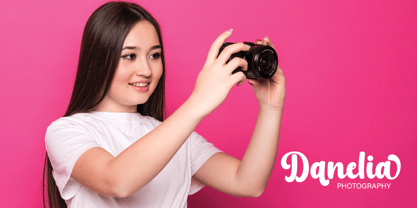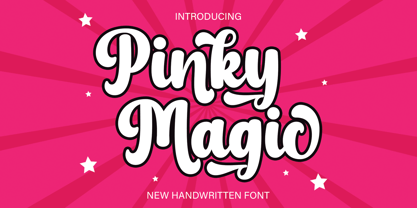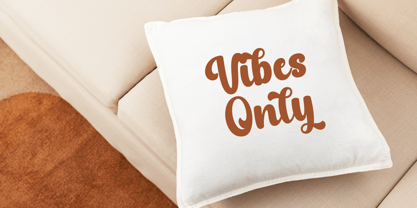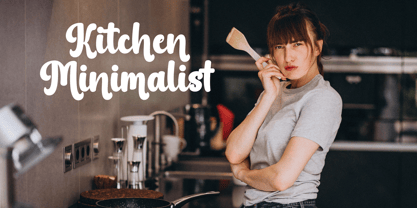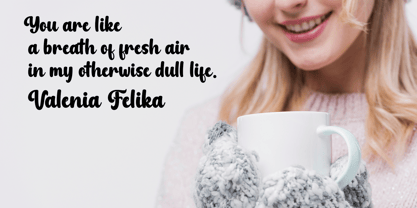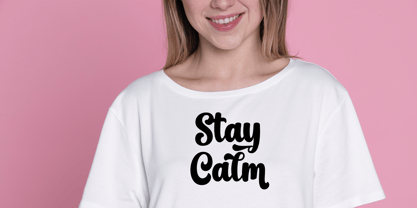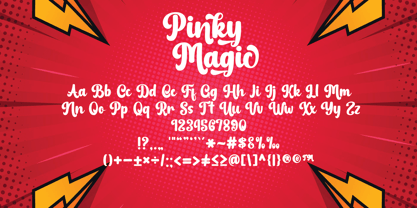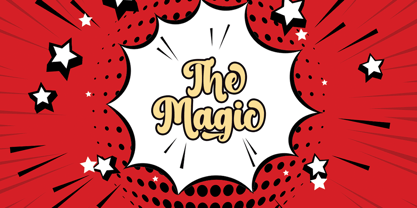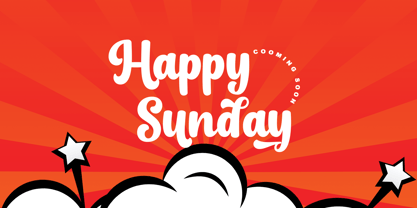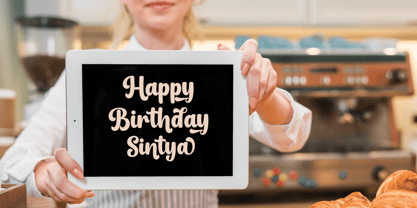
Pinky Magic
von Dania Graphix Studio
Die Schriftfamilie Pinky Magic wurde von entworfen und von Dania Graphix Studio veröffentlicht. Pinky Magic enthält 1 Stile. Mehr über diese Familie
Pinky Magic is playfully nostalgic and delivers an incredible display font. Use this display font to add that special retro touch to any design idea you can think of! Masterfully designed to become a true favorite, this font has the potential to bring each of your creative ideas to the highest level!